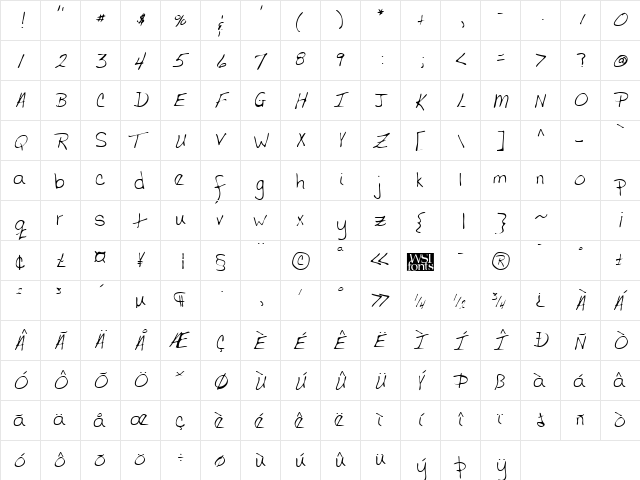
CodysHand Regular
Design Context for CodysHand Typeface
CodysHand flows with the natural rhythm of handwritten lettering, making it ideal for designs that call for warmth and personal expression.
Font Pairing: Combine CodysHand with a simple geometric sans for maximum contrast — the tension between flowing curves and clean structure is a classic typographic pairing.
Pro Tip: Pair CodysHand with a clean sans-serif for supporting text. The contrast between fluid script and geometric structure creates an elegant typographic hierarchy.